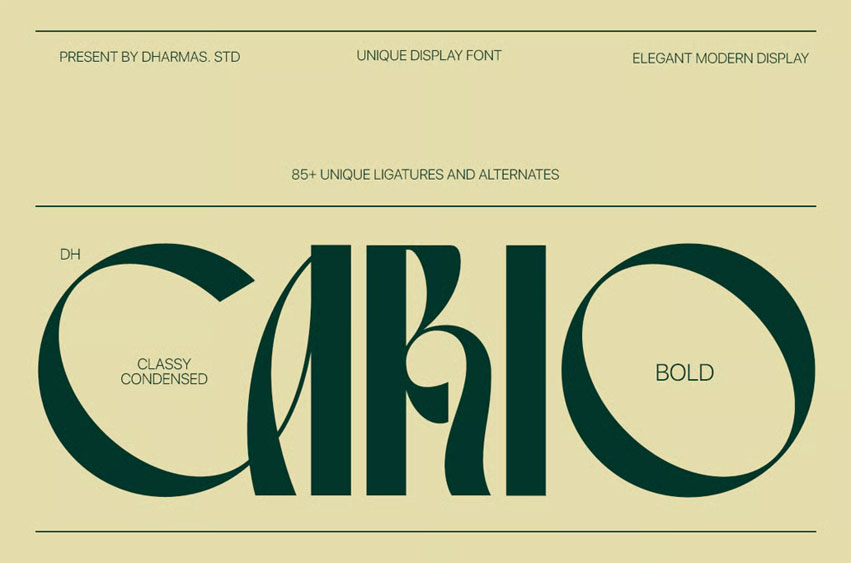
Cario Bold Font
Cario Bold Font Strong Modern Display, a bold serif display typeface designed by Dharmas Studio. Featuring the Bold style, this version delivers confident curves and powerful contrast—perfect for attention-grabbing headlines and editorial design.
Cario Bold brings a modern flair to classic serif forms, making it ideal for designers who want their typography to feel both elegant and assertive. Paired with 85+ ligatures and alternates, this font gives you the creative flexibility to design standout visuals with refined detail.
• 1 Weight: Bold
• 85+ Unique Alternates and Ligatures
• Letters, numbers, symbols, punctuation, special alternates